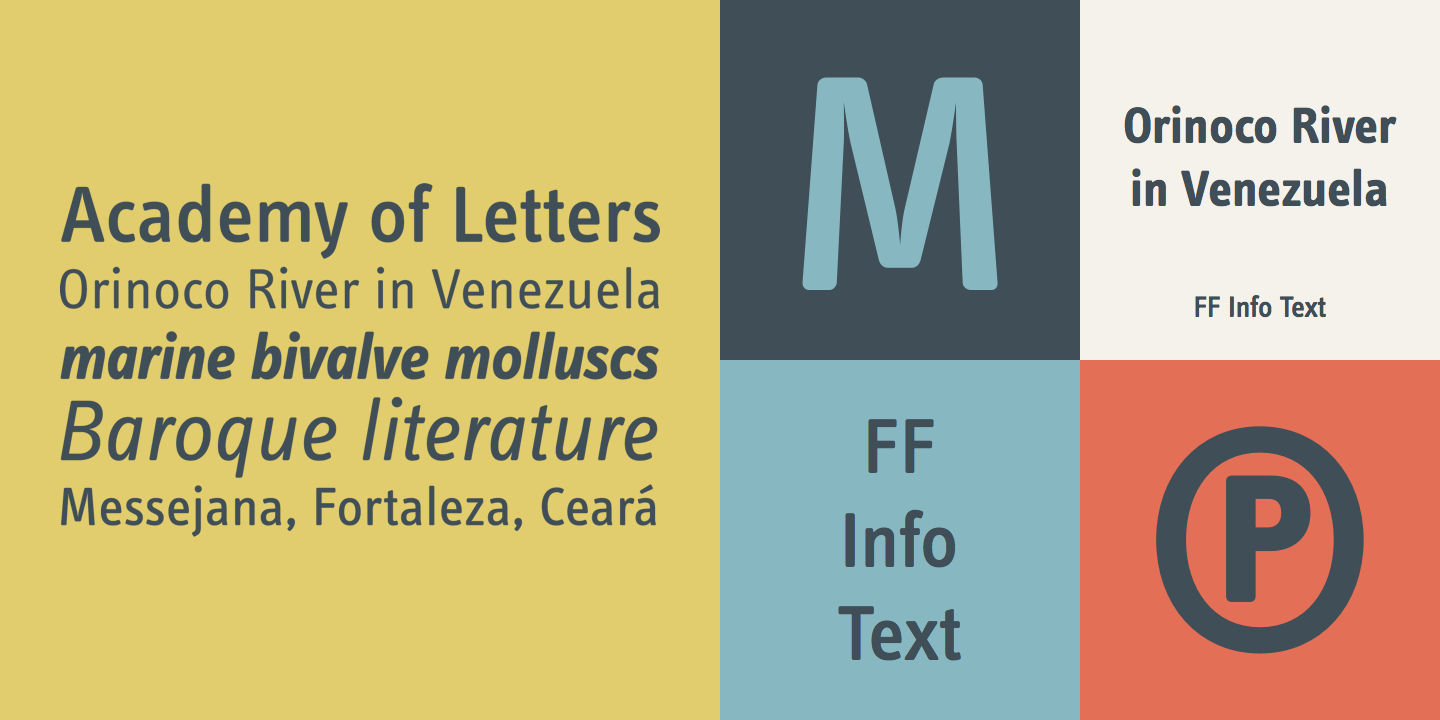
FF Info Text Font is perfect for informational signage systems, public transportation displays, airport wayfinding, hospital directories, educational institution materials, government publications, technical documentation, emergency communication systems, municipal information boards, and public service announcements. This highly functional typeface excels in environments where maximum clarity and instant readability are absolutely critical.
What makes FF Info Text Font exciting is its scientifically optimized design specifically engineered for superior legibility under challenging conditions. The font features carefully calibrated letterforms, enhanced character spacing, and optimized stroke weights that ensure exceptional readability at distances, in poor lighting, and during quick scanning situations. This precision makes it ideal for organizations requiring reliable information delivery where miscommunication could have serious consequences.
FF Info Text Font family includes Light, Regular, Medium, Bold, Black, Condensed, and corresponding Italic variants. Each weight maintains the font's distinctive clarity-focused character while offering comprehensive flexibility for creating hierarchical information systems that guide users effectively through complex environments and communications.
Typography experts recognize the font's superior technical implementation, including optimized character recognition features, enhanced distinguishability between similar letters, and improved performance under adverse viewing conditions. The design incorporates scientific principles of visual perception to maximize information processing efficiency.
When implementing FF Info Text Font in design projects, the results consistently demonstrate exceptional functional performance and user accessibility. The font's clarity-optimized personality makes it particularly effective for organizations in transportation, healthcare, education, and public services where information accuracy and speed are paramount.
For digital environments, FF Info Text Font renders exceptionally well across all display technologies, maintaining its superior legibility from small mobile screens to large-format digital signage. Its optimized hinting ensures consistent clarity across different viewing distances and lighting conditions.
Public sector agencies consistently select FF Info Text Font for projects requiring maximum informational clarity and accessibility, where standard typography cannot provide the reliability and performance demanded by critical communication systems.